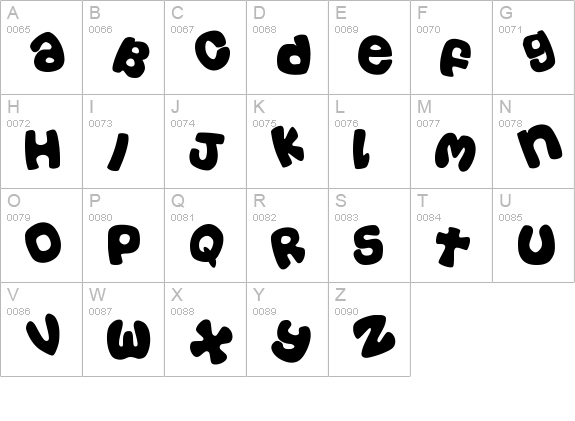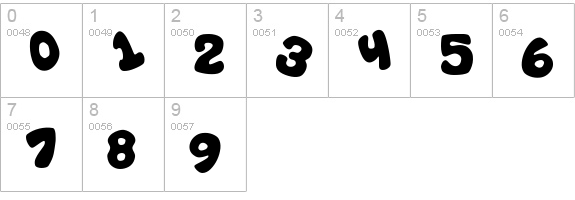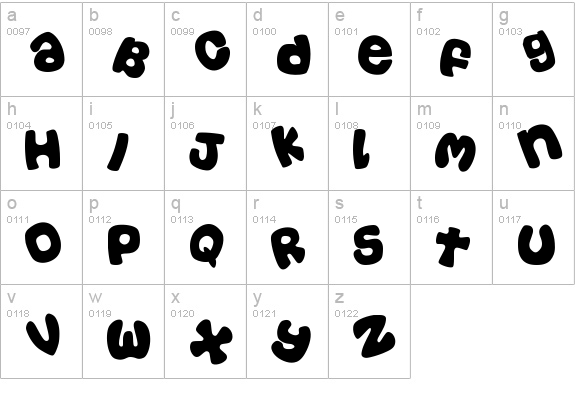
Casual Tossed font is a charming and versatile typeface that adds a playful touch to any design project. Its handwritten style exudes a sense of informality and friendliness, making it perfect for casual and fun designs. The irregularity of the strokes gives the font a unique and organic look, adding character and personality to your text. The best part about Casual Tossed font is that it is free to download at FontsMarket.com. This means you can easily incorporate this delightful font into your projects without any extra cost. Whether you're working on a greeting card, poster, or social media graphic, Casual Tossed font will effortlessly enhance your design with its lighthearted and carefree aesthetic. Don't miss out on this fantastic opportunity to elevate your designs with the whimsical charm of Casual Tossed font. Download it for free today and let your creativity soar!